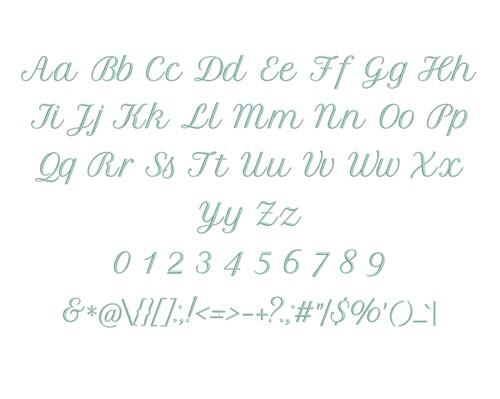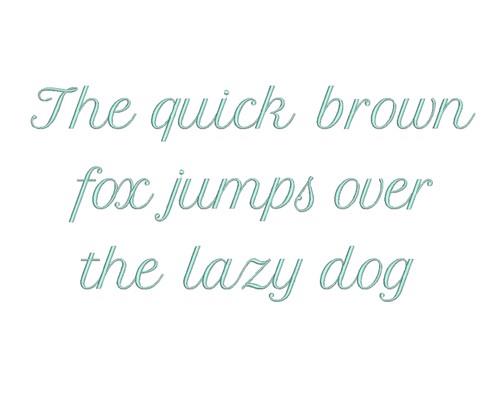
Maya Kreations is happy to present Petit Formal Font machine embroidery font which has Flowing script machine embroidery font with soft curves, ideal for intricate designs on napkins or gift items. Available in PES, DST, and 9 other formats. included. If you would like to view more embroidery fonts and alphabets please search our embroidery fonts page.